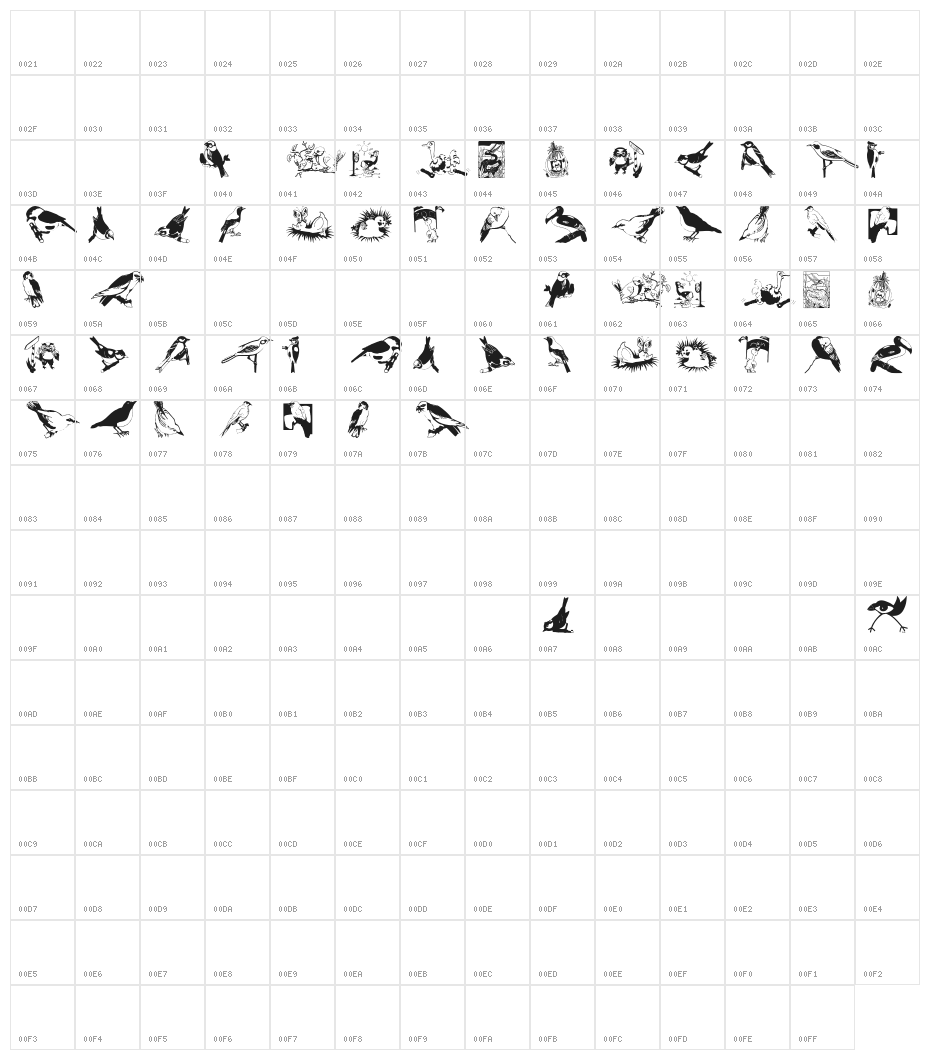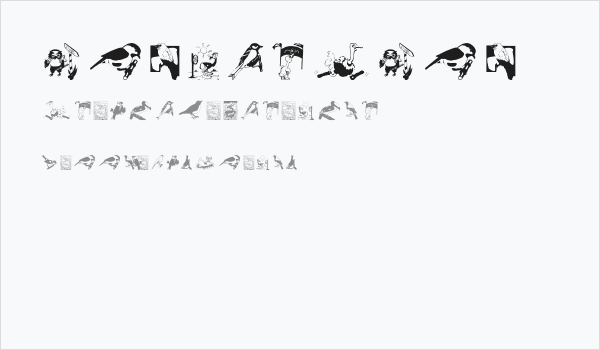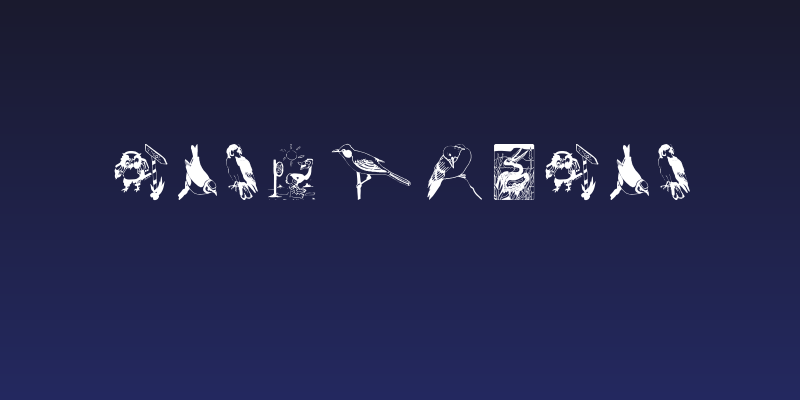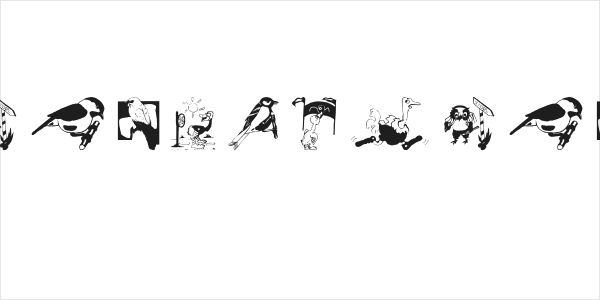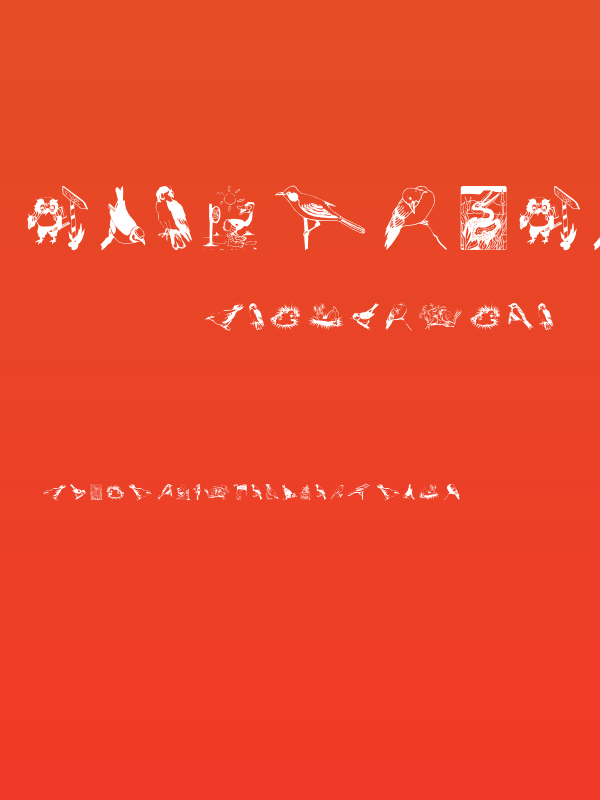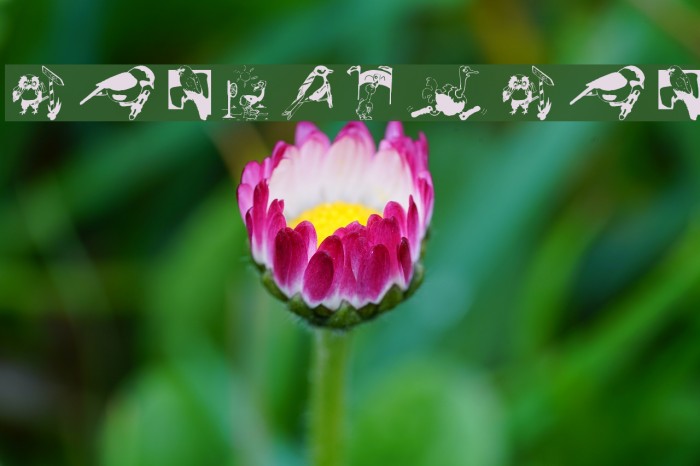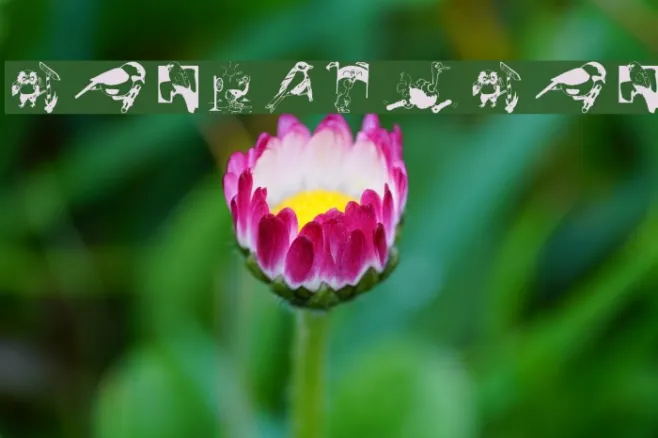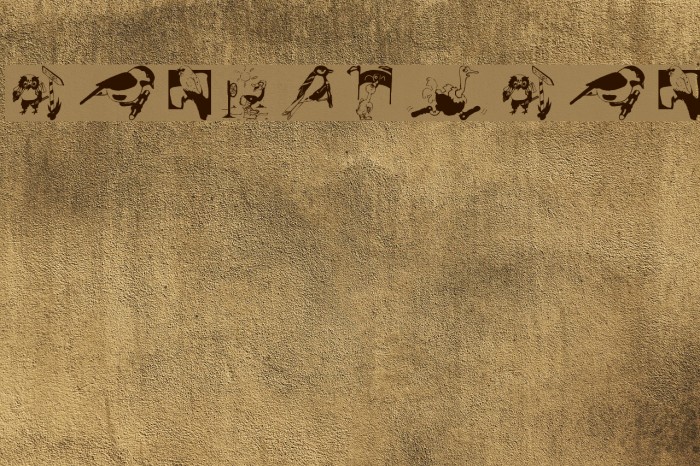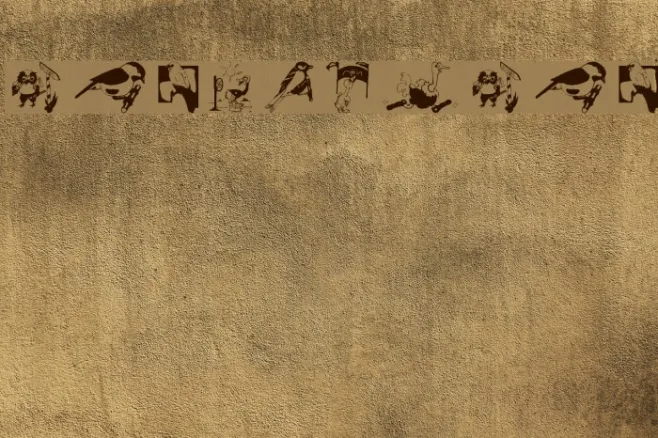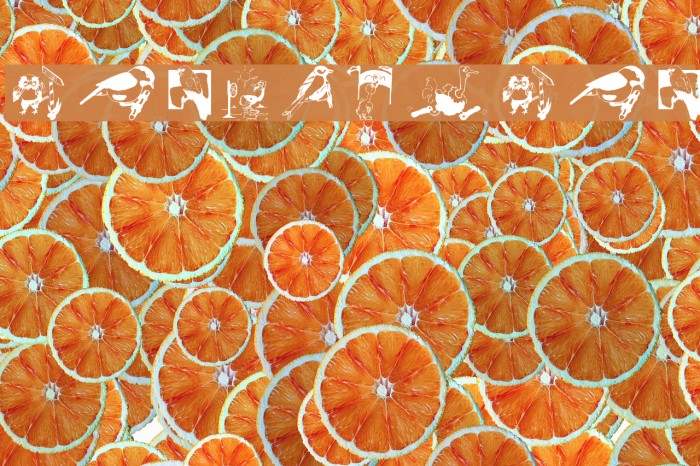
FlyBirdFly Font
FlyBirdFly Description
This font is a decorative and playful collection of bird illustrations, each representing a different character or symbol. The designs are intricate, showcasing various bird species in dynamic poses, often incorporating elements like nests or branches. The style is whimsical and artistic, making it ideal for creative projects that require a touch of nature or a unique visual element. The characters are not traditional letters but rather detailed drawings, which adds a layer of complexity and charm.
| Use Case | Logos, Illustrations, Creative projects |
| Proposed Projects | Ideal for nature-themed designs, children's books, educational materials, and creative branding projects. |